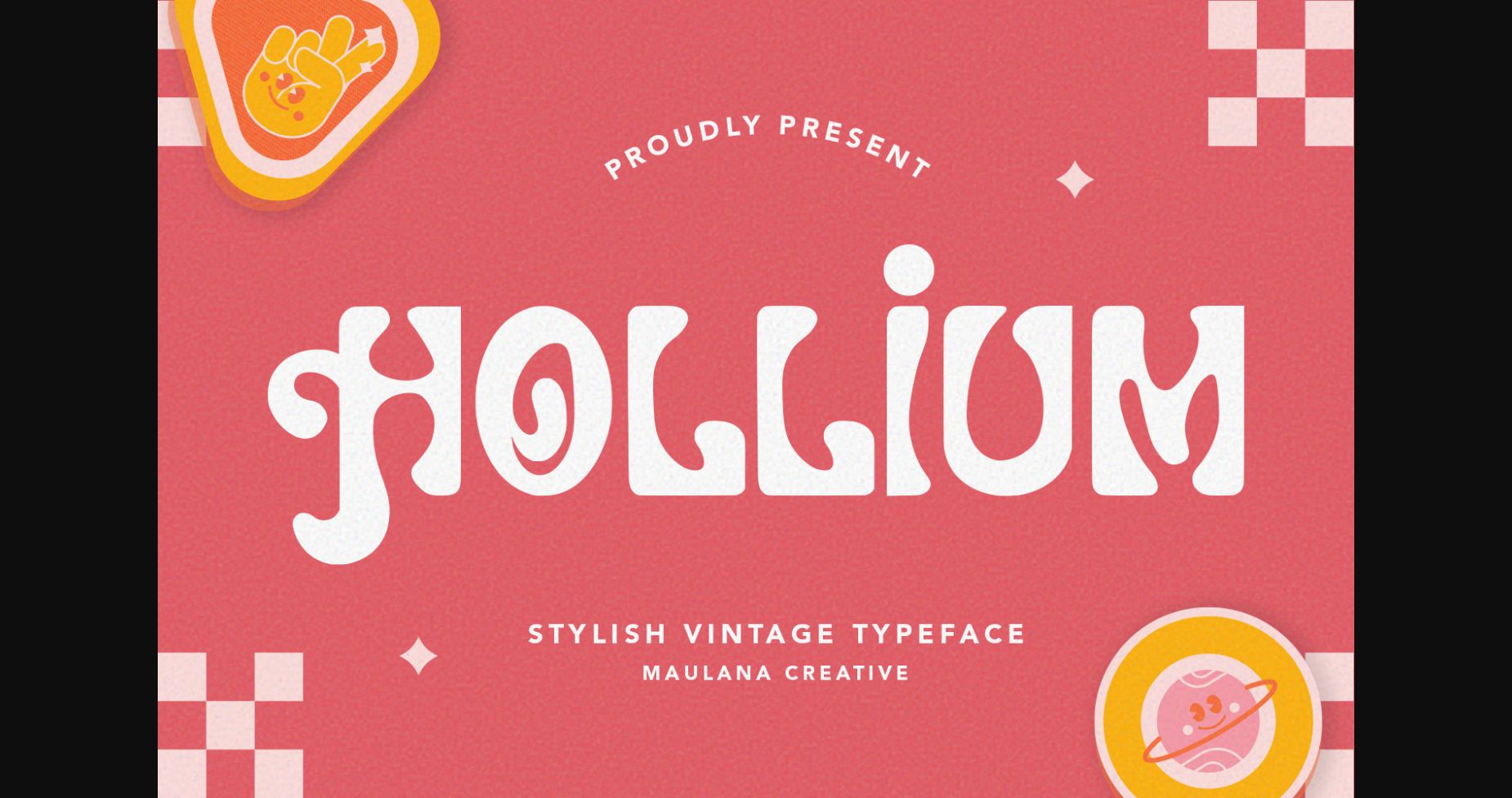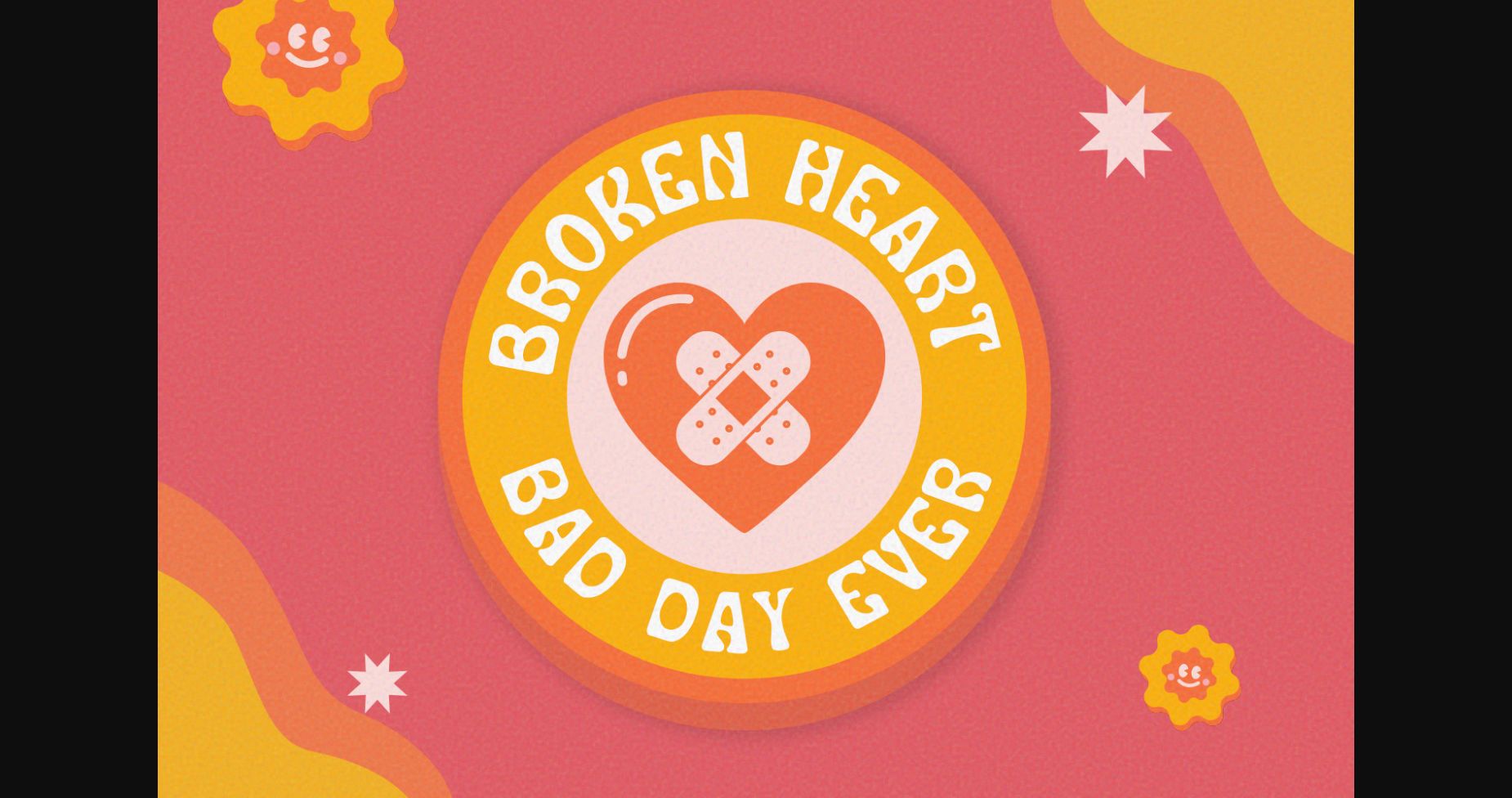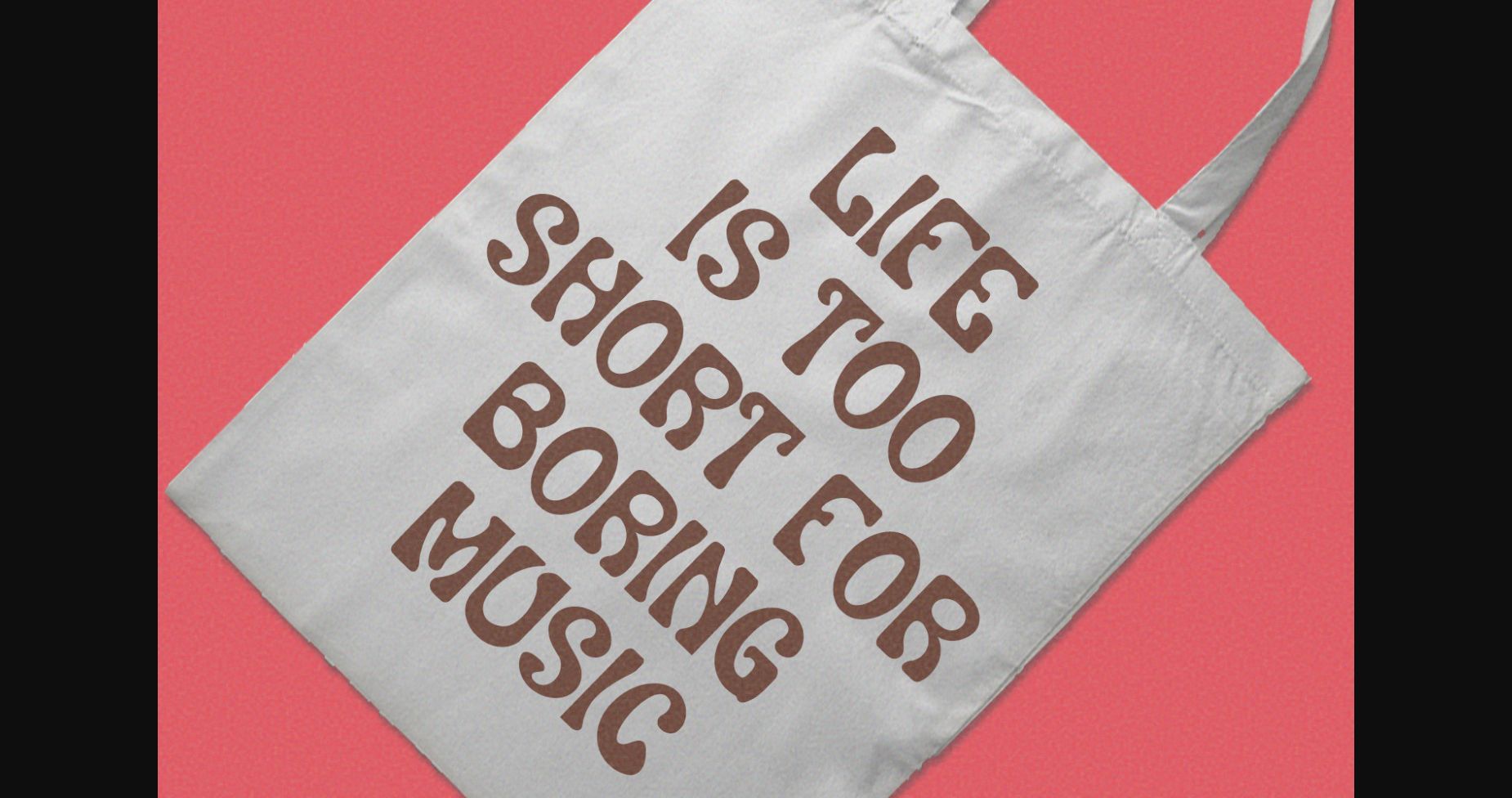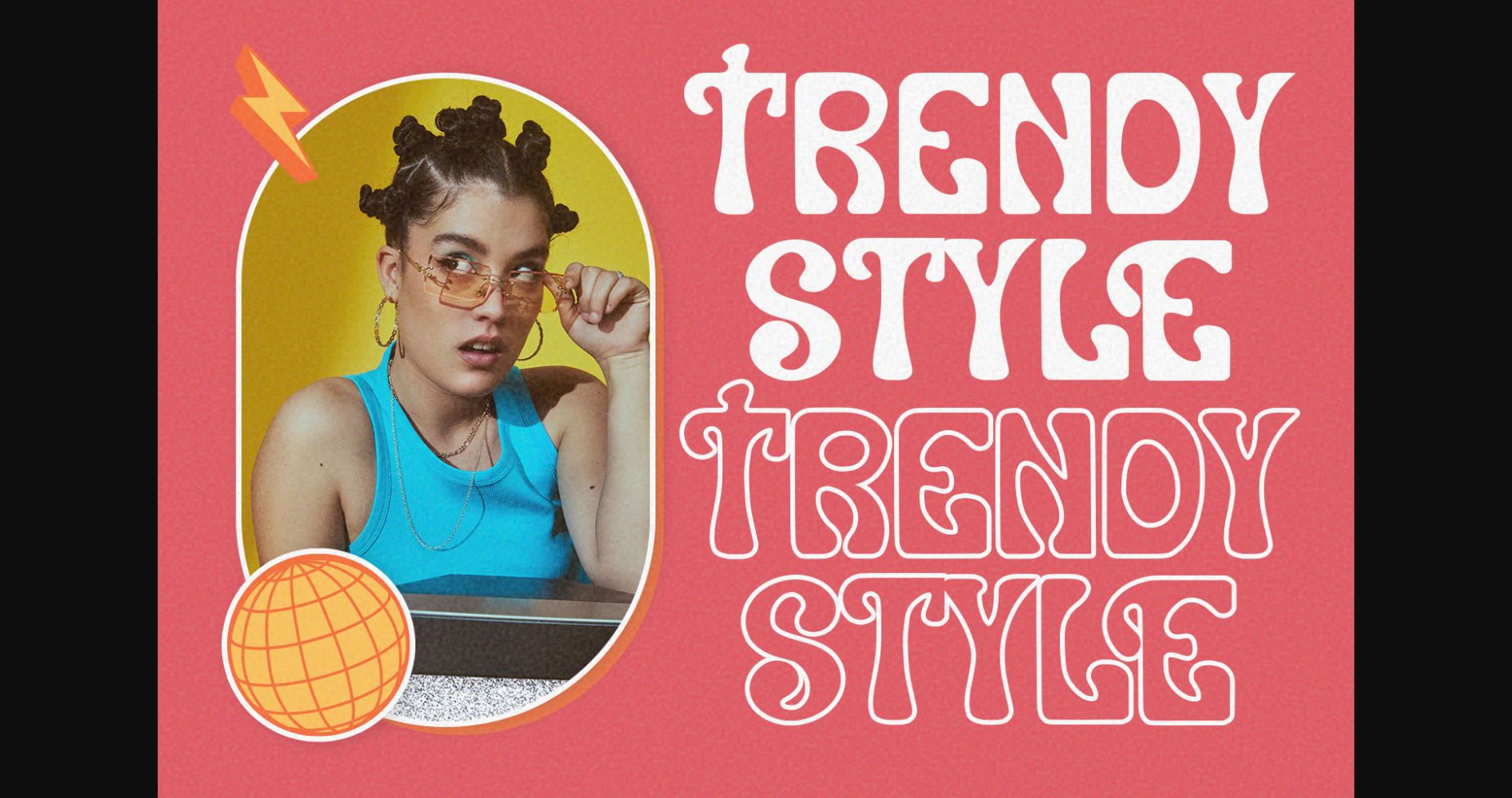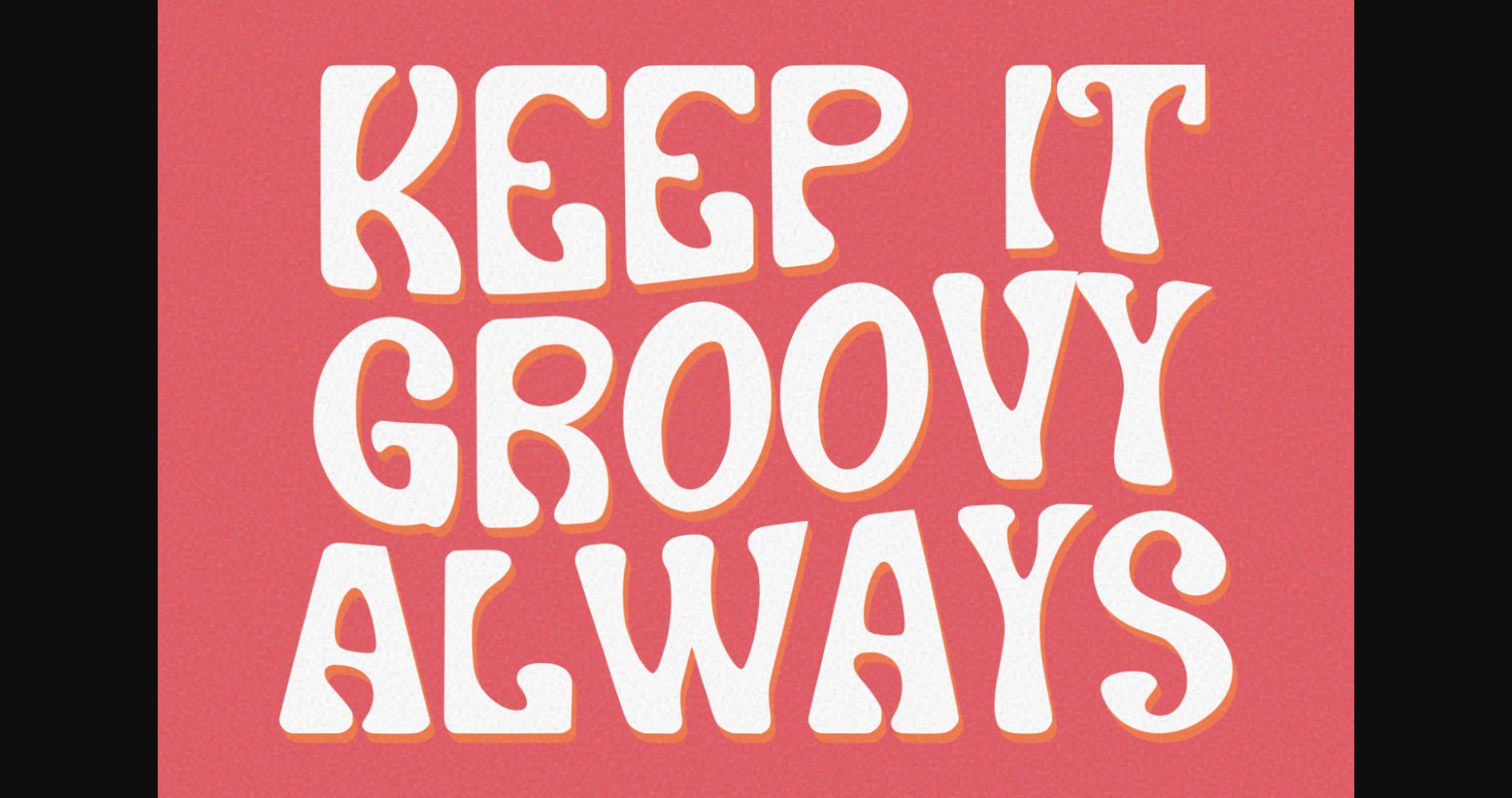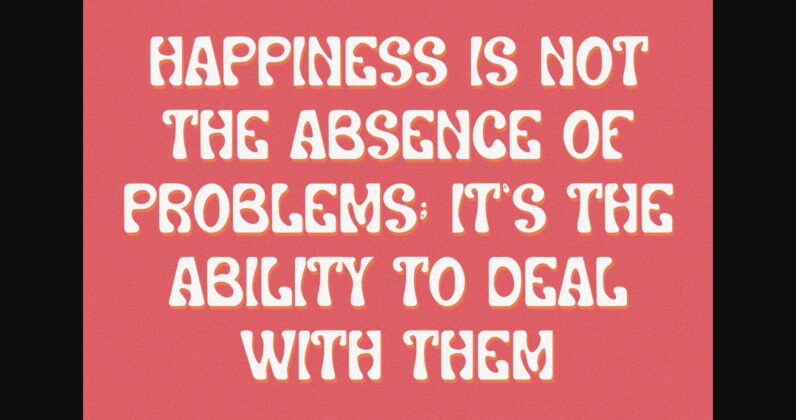
About Hollium Font
Hollium is a trippy and groovy sans serif font that evokes the psychedelic aesthetic of the 1960s. Its flowing curves and rounded edges give it a playful and whimsical feel, while its bold lines and heavy weight lend it a strong presence. Hollium is perfect for any design project that requires a touch of retro coolness and a bit of fun.